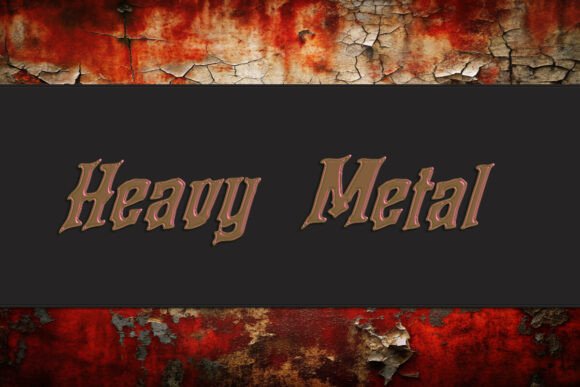
Introduction to Heavy Metal Font
Introducing the Heavy Metal Font, an extravagant choice that transcends the ordinary.
Seamlessly lending itself to an exciting range of applications, this font can transform simple shirts into high-fashion statements and turn ordinary stickers into riveting visuals Its powerful style is a perfect fit for creating bold brand identities, and its unique personality brings an innovative touch to magazine layouts.
Key Features of Heavy Metal Font
Why Choose Heavy Metal Font?